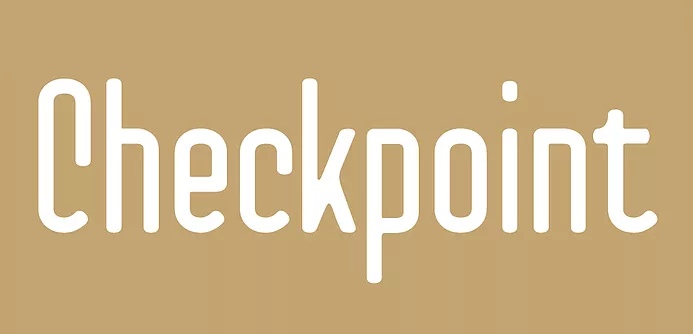
Checkpoint Font
Checkpoint Font is perfect for security company branding, military-themed designs, gaming interfaces, tactical equipment packaging, checkpoint signage, border control materials, surveillance system graphics, law enforcement publications, cybersecurity firm logos, and strategic planning documents.
What makes Checkpoint Font so exciting is its commanding ability to communicate authority, precision, and unwavering vigilance through bold, structured letterforms that demand respect and attention. This powerful typeface captures the essence of security operations and tactical precision with characters that seem forged from steel and designed for maximum clarity under pressure. The font's disciplined design elements perfectly embody themes of control, protection, and strategic planning, making it an essential choice for organizations and projects that require absolute trust and professional credibility in high-stakes environments.
Checkpoint Font comes in multiple font families including Regular, Bold, Extra Bold, Condensed, Extended, Stencil, Tactical, and Digital variations. Each family member maintains the core security characteristics while offering different authority levels and operational approaches to suit various professional design requirements.
The Checkpoint Font Free Download provides designers with an exceptional resource for creating authoritative materials that establish immediate credibility and professional trust. This remarkable typeface distinguishes itself through its unique ability to communicate themes of security, precision, and operational excellence. Whether you're developing security firm branding, creating tactical training materials, or designing checkpoint identification systems, this font ensures your message conveys the uncompromising standards and professional reliability that critical operations demand.
The strategic clarity in Checkpoint Font makes it particularly effective for high-pressure environments where instant recognition and clear communication can make the difference between success and failure. Its commanding presence works exceptionally well in both digital applications and physical signage, where the authoritative letterforms create the professional atmosphere that security operations require.
Security professionals recognize how Checkpoint Font transforms ordinary text into official declarations of authority and operational readiness. The typeface's precise character set includes special tactical symbols and security elements that enhance the overall professional atmosphere of any security-related project.
For creative professionals serving security, military, and tactical industries, Checkpoint Font serves as the ultimate tool for establishing memorable visual identities that capture the essential qualities of vigilance, precision, and unwavering commitment to protection that define professional security operations.